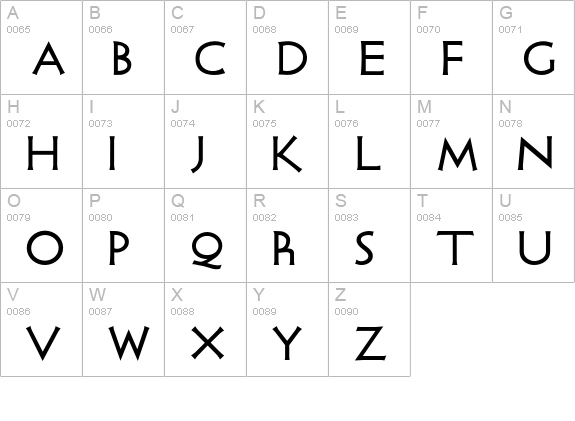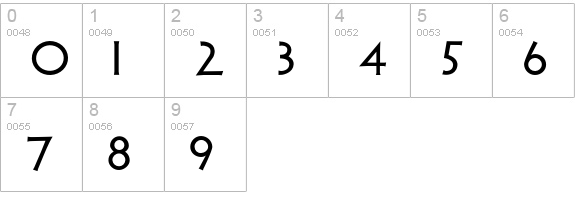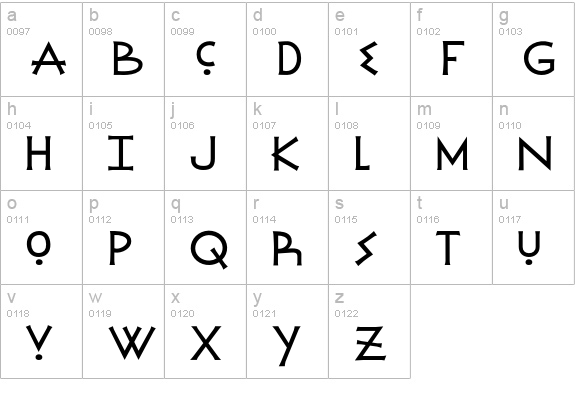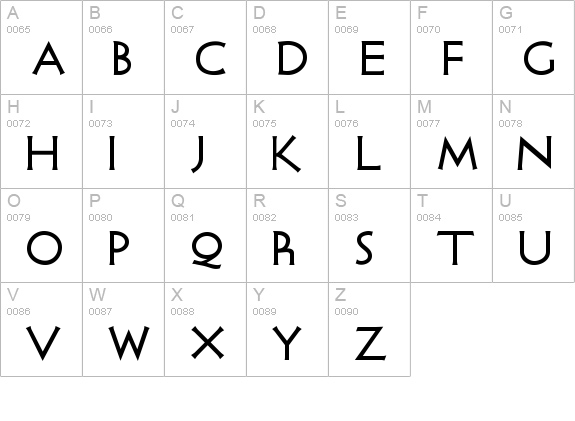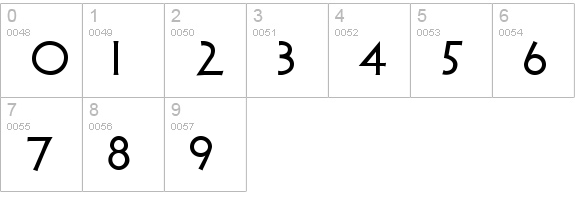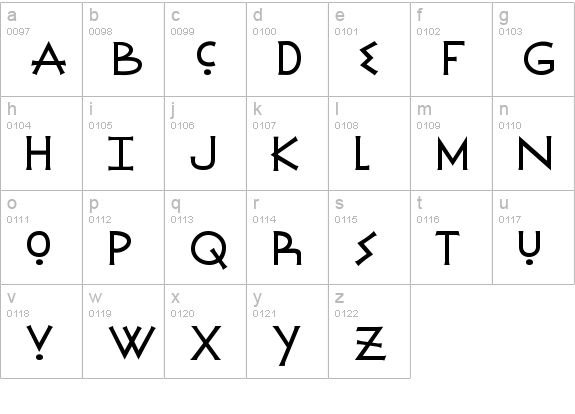
Socrates Font Details
Introducing Socrates font, a beautifully crafted typeface that combines elegance with a touch of modernity. Designed with meticulous attention to detail, this font exudes sophistication and versatility, making it perfect for a wide range of design projects. Socrates font features clean lines and balanced letterforms, creating a harmonious and visually appealing aesthetic. Its timeless and stylish appearance makes it suitable for various applications, from branding and logo design to editorial layouts and web design. With its extensive character set, Socrates font offers support for multiple languages, ensuring that your message can be effectively communicated across different cultures and regions. Its legibility and readability make it a reliable choice for both print and digital media. But what truly sets Socrates font apart is its accessibility. It is freely available to download at FontsMarket.com, allowing designers and creatives to unleash their creativity without any financial constraints. Whether you're a professional designer or a hobbyist, you can now enjoy the benefits of this exquisite font without any cost. So, why wait? Enhance your design projects with the timeless elegance of Socrates font. Download it today from FontsMarket.com and let your creativity soar to new heights.